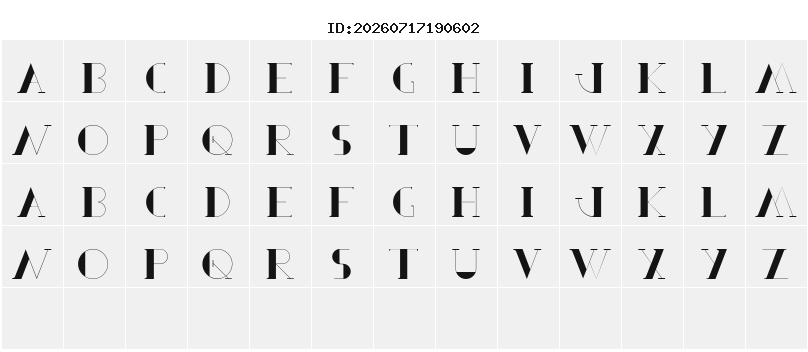
About Berbel Serif.ttf
Berbel Serif.ttf is a modern, elegant sans-serif font designed for ultimate readability and visual harmony. Perfect for branding, headlines, web design, and print materials.